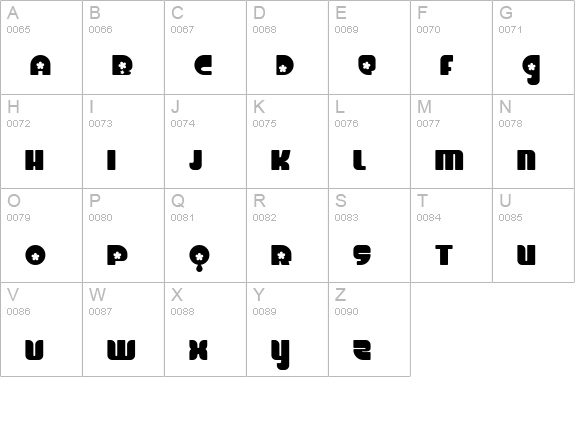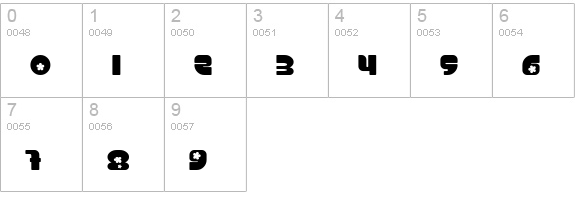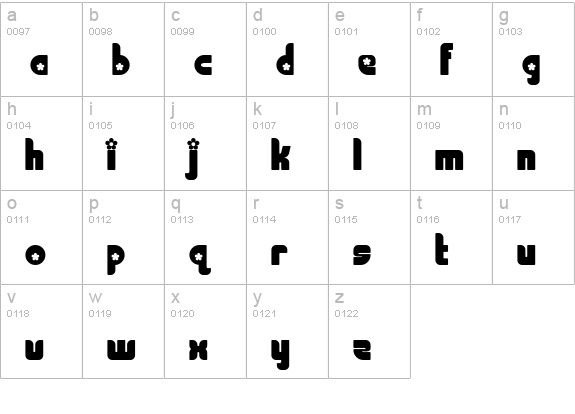
Chick Font Details
Chick font is a charming and playful typeface that exudes a sense of fun and whimsy. With its rounded edges and quirky design, this font is perfect for adding a touch of personality to any project. Whether you're creating a cute greeting card, designing a fun logo, or crafting a cheerful poster, Chick font is sure to make your text stand out. Best of all, Chick font is completely free to download at FontsMarket.com. This means you can easily access this delightful font and use it in your creative endeavors without any cost. So why wait? Download Chick font today and infuse your designs with a dose of cheerfulness and charm!